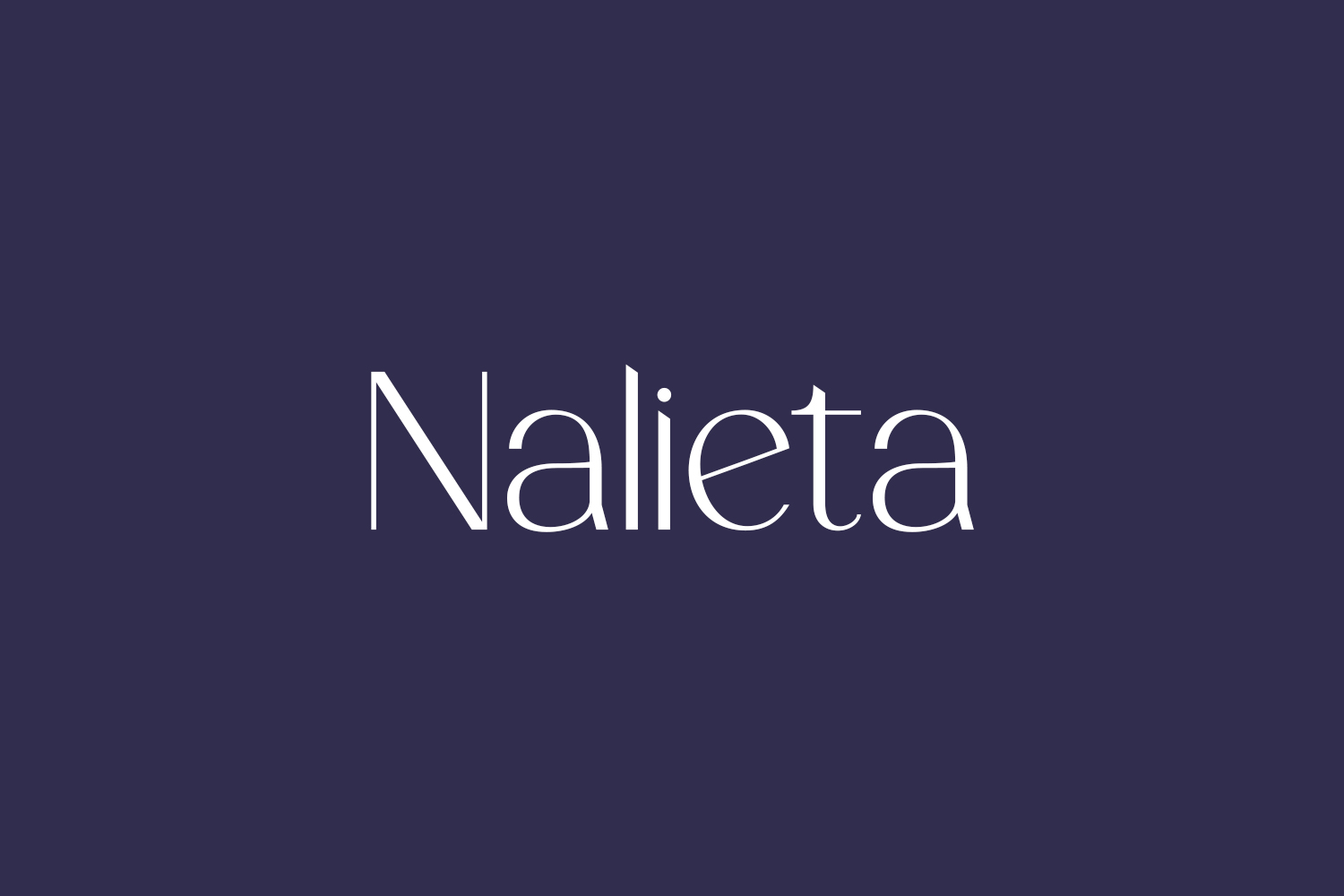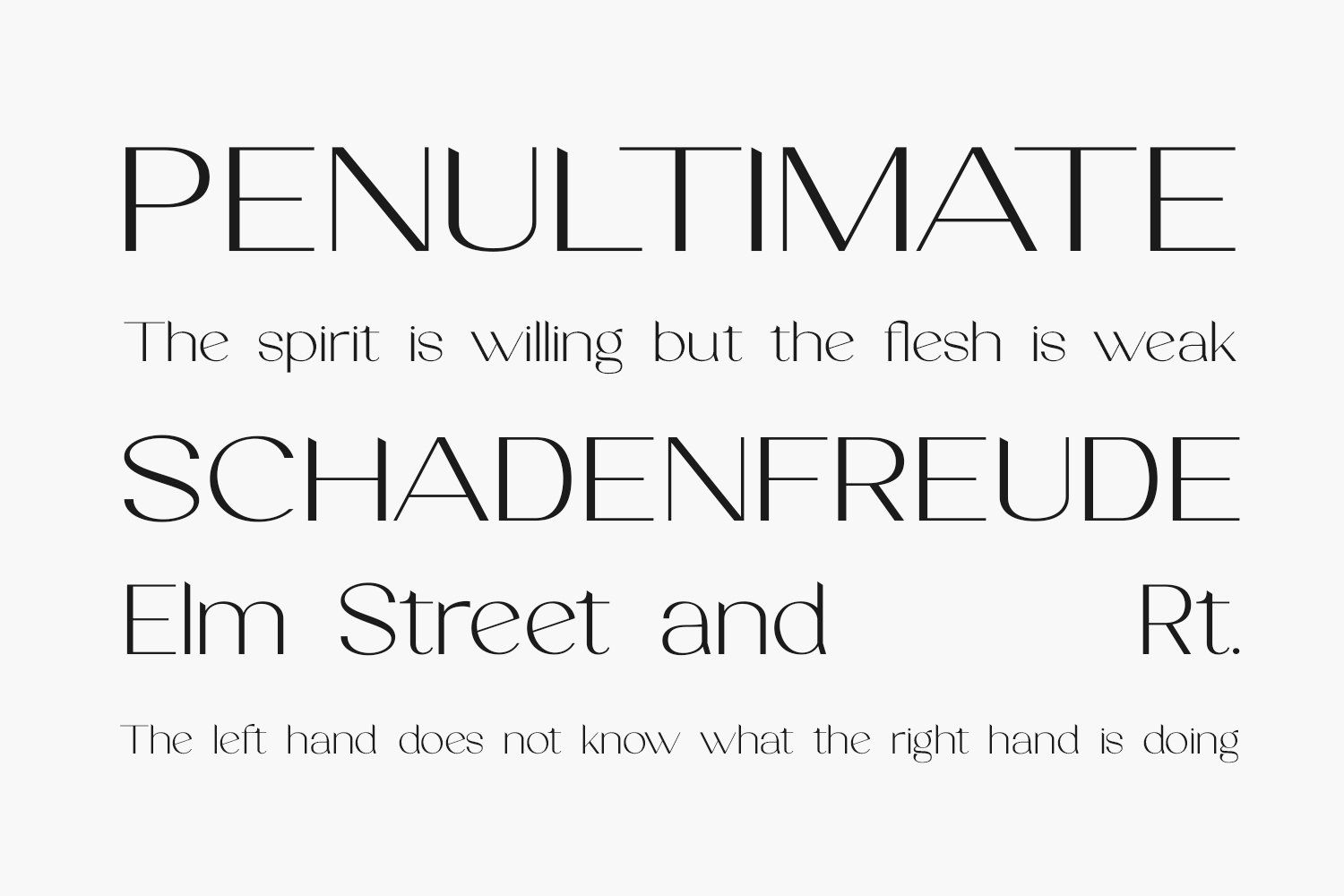
Nalieta Free Font is a sophisticated and delicate sans serif font, with elegant, slender lettering. It adds a touch of personalization to a wide range of designs, making it a perfect choice for special moments like wedding invitations, thank you cards, greetings, and logos. Its versatility and refined style make it a standout choice for any design project.
Designed by Fridaytype